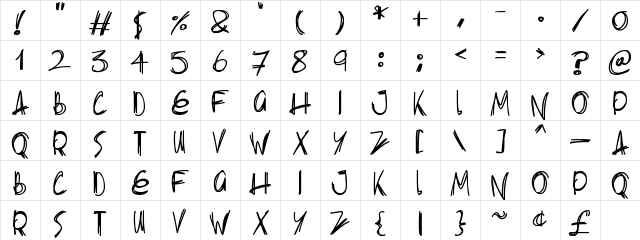
Slenderscratch Regular
Design Context for Slenderscratch Typeface
Slenderscratch is a composed and adaptable typeface that performs quietly and consistently across a wide range of design contexts.